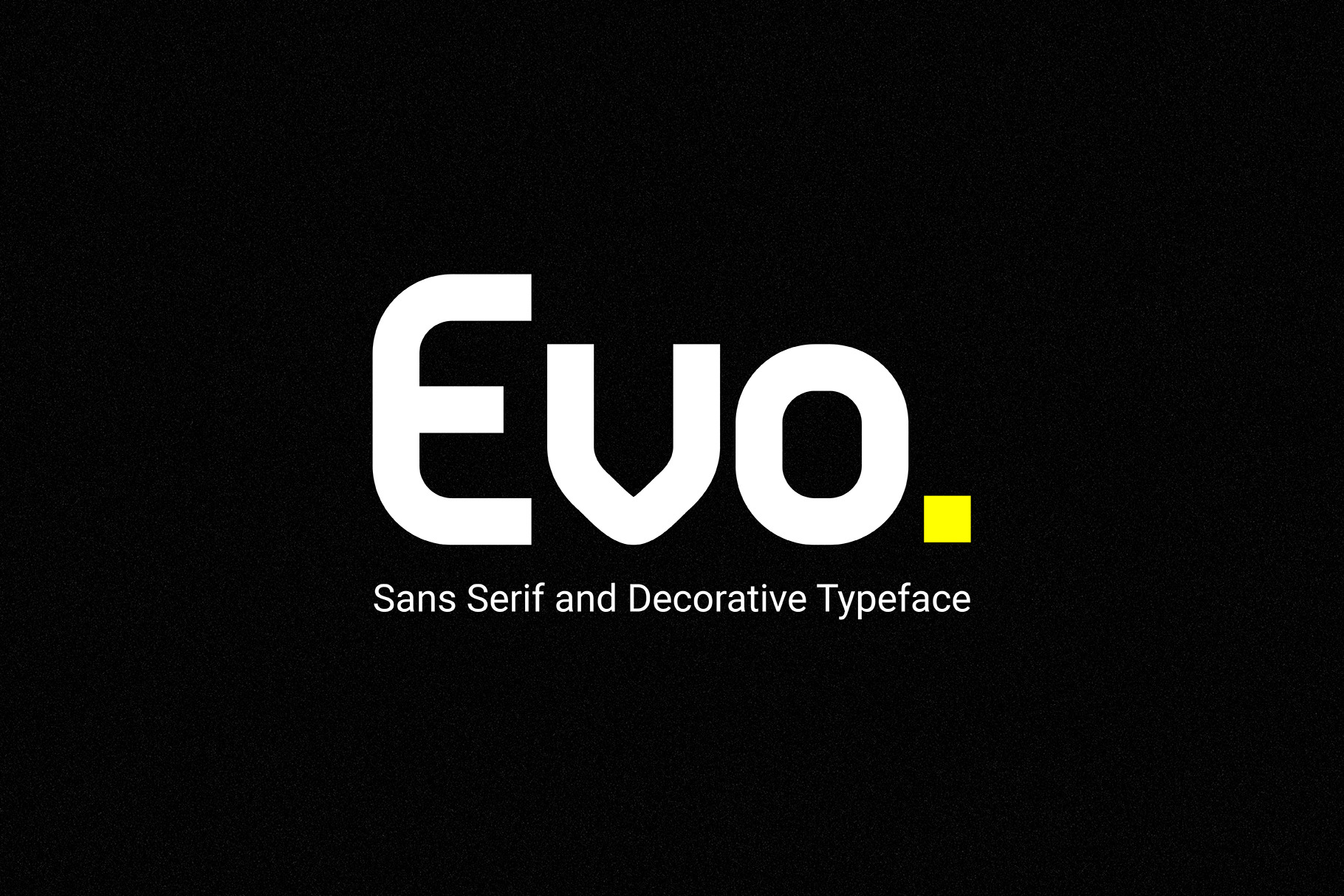
Evo - Sans & Decorative Typeface
Evo is a unical font family. Strong capitals and a smooth, open lowercase are effective in a variety of applications. The geometric, near-monoline construction lends Evo a classic durability reminiscent of the 1970s, tempered by softened edges and vibrant shapes.
FIve weights
- Latin alphabets
- OpenType features, including contextual alternates